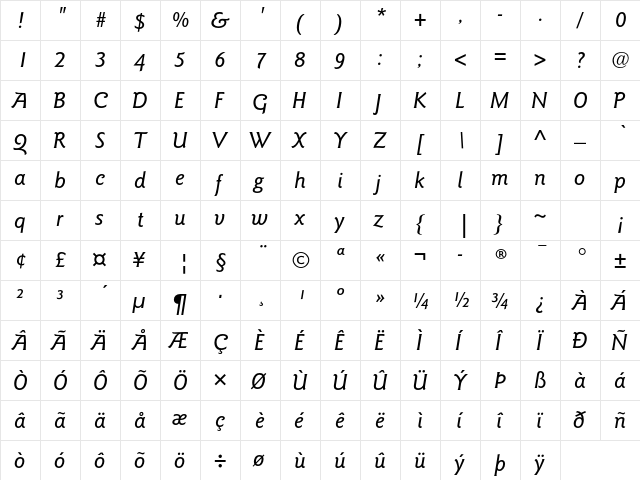
ITC Goudy Sans Std Medium Italic Font Preview
ITC Goudy Sans Std Medium Italic
| Designer | Frederic W. Goudy |
Design Context for ITC Goudy Sans Std Typeface
ITC Goudy Sans Std offers clean, dependable letterforms without strong stylistic allegiance, making it a practical choice for designers who need flexibility. The dynamic lean of this cut emphasises speed and emphasis in any layout.
Pro Tip: Use ITC Goudy Sans Std for emphasis, pull quotes, and subheadings where its slanted energy can add rhythm to the layout.